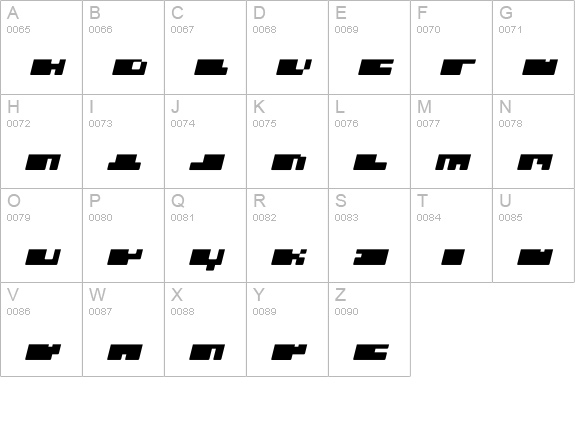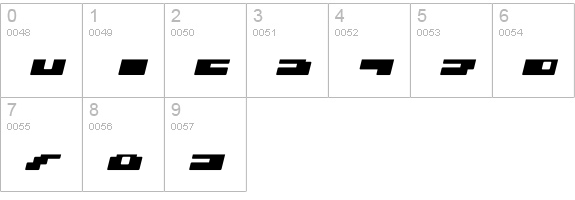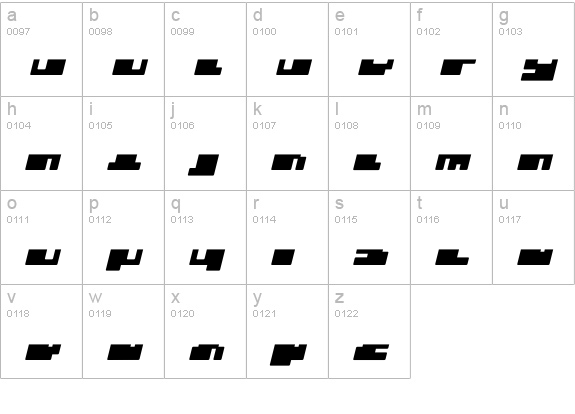
DS PTRLDizel05Plus Font Details
DS PTRLDizel05Plus font is a modern and stylish typeface that exudes elegance and sophistication. With its unique and eye-catching design, this font is perfect for a variety of design projects, from branding to advertising to social media graphics. The sleek lines and sharp edges of DS PTRLDizel05Plus font make it stand out and capture attention. The best part about DS PTRLDizel05Plus font is that it is available for free download at FontsMarket.com. This means that you can easily access and use this beautiful font in your projects without any cost. Whether you are a professional designer or a hobbyist looking to enhance your creations, DS PTRLDizel05Plus font is a fantastic choice that won't break the bank. Don't miss out on the opportunity to elevate your designs with the exquisite DS PTRLDizel05Plus font. Download it for free today at FontsMarket.com and start creating stunning visuals that will leave a lasting impression.